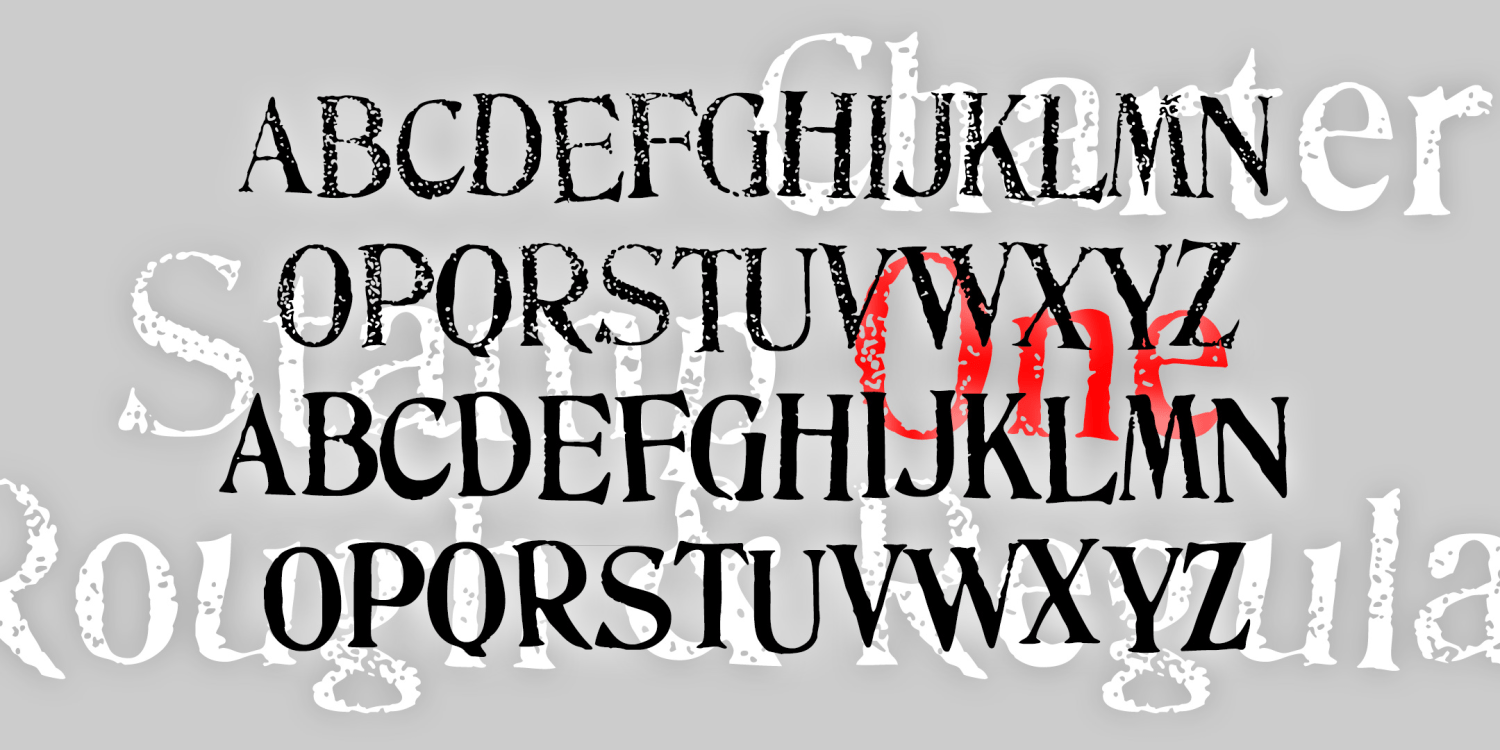
Charter Stamp One
About Charter Stamp One
The set of four CHARTER STAMP fonts were inspired by two boxes of vintage rubber stamps. I’ve married the two stamp sets (One is narrow, Two is wide) into one font set, and each has a Regular and Rough variety for an authentic rubber-stamp feel.…